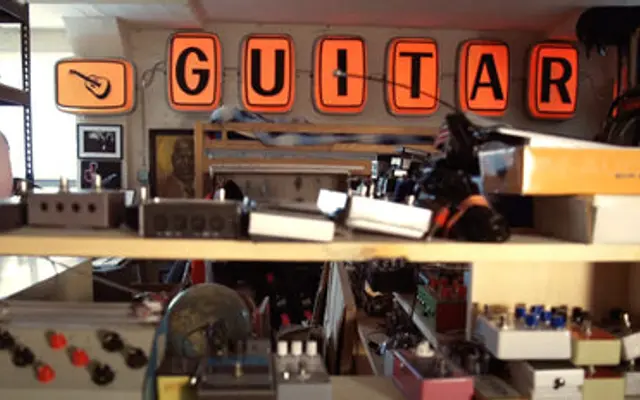
Wilco Loft Sans
A custom all-caps display sans commissioned for Wilco, derived from a vintage blow-mould guitar shop sign rescued from a Chicago suburb and installed in the band's recording studio.
Designed for the band Wilco, this typeface traces its letterforms back to a handful of characters on an old 'GUITAR' sign hanging in The Loft, the band's Chicago recording studio. Simple Bits took those original glyphs and expanded them into a full alphabet across four weights, named Treble, Midrange, Low End and Bass. Each weight also contains custom icons representing each band member's favourite instrument, drawn in the style of the lefty acoustic on the original sign.
An all-caps, high contrast sans serif drawn from a specific vintage sign, with strong display character and no lowercase; classified as display due to its expressive contrast and single-case design.